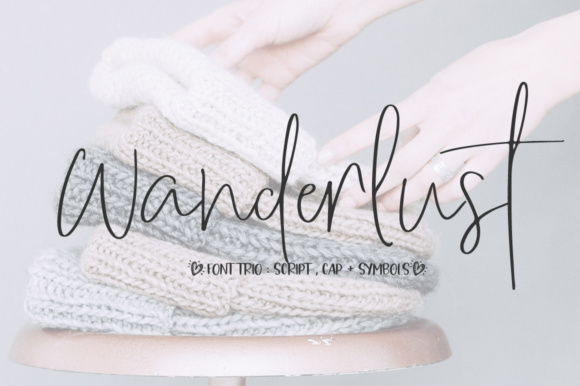
Wanderlust Trio Font
Font Name : Wanderlust Trio Font
Author : Studio_Art
Ignite your creativity with Wanderlust Trio Font, a breathtaking script font family that exudes elegance and charm. This font is an artistic masterpiece, meticulously crafted by skilled hands, resulting in a collection of characters that dance and flow with captivating grace.
With Wanderlust Trio Font, your designs will transcend the ordinary, captivating your audience with its unique and enchanting style. Whether you're crafting wedding invitations, branding materials, or whimsical designs, this font will elevate your projects to new heights.
Immerse yourself in the world of Wanderlust Trio Font and discover a realm of possibilities. This font is not just a tool; it's an experience, a journey through the realm of visual enchantment. With each letter, you'll feel the passion and dedication poured into its creation.
Unleash your creativity and let Wanderlust Trio Font guide you towards stunning designs. Its versatility knows no bounds, allowing you to craft designs that resonate with your unique style and vision. Let your imagination soar and witness the transformation of your projects into works of art.
Don't settle for ordinary fonts that blend into the background. Embrace the allure of Wanderlust Trio Font, a font that commands attention and leaves a lasting impression. Let your designs shine with a captivating charm that captivates and inspires.